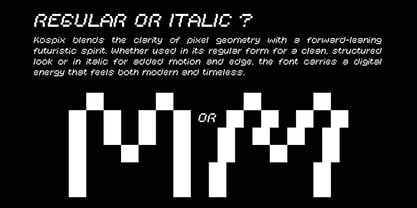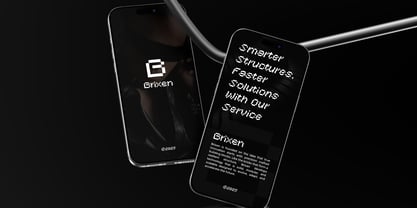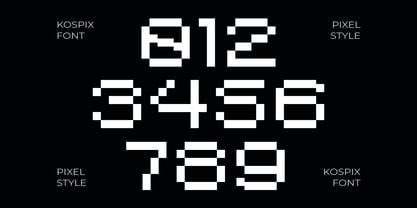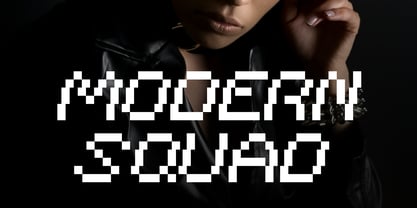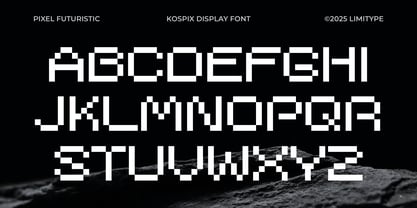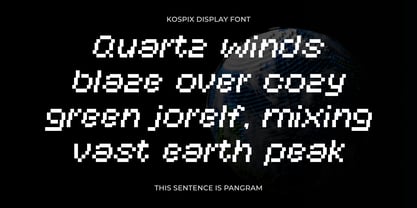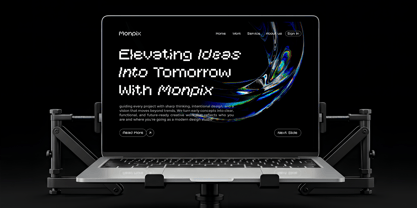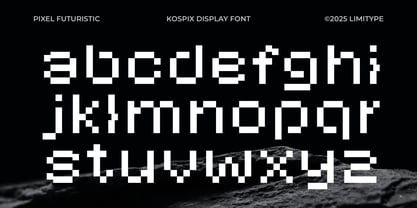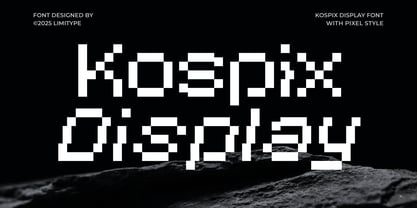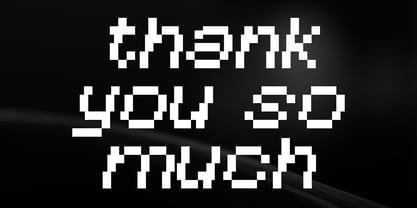
Kospix
by limitype
The Kospix Font Family was designed by Muhammad Muammar, Furqan Sudirman and published by limitype. Kospix contains 2 styles and family package options.
Kospix display is a clean pixel typeface, crafted with grid based square shapes that bring a classic retro digital feel. The italic option adds a slight dynamic slant that makes the pixel look more expressive without changing its signature character. Suitable for game UI, retro branding, interface text, and creative display designs, this font offers clarity, nostalgia, and versatility in one package. Kospix available with: Uppercase Lowercase Number Symbol Multilingual
Designers: Muhammad Muammar, Furqan Sudirman